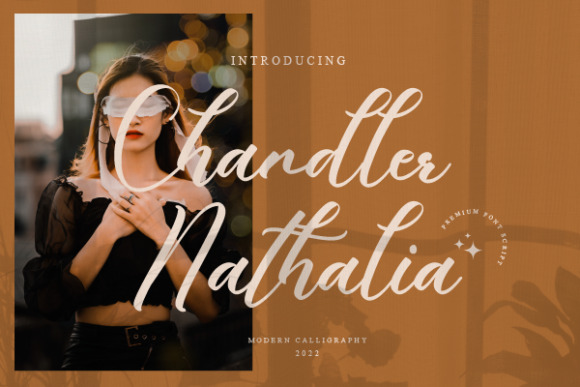
**Introducing Chandler Nathalia Script Font: The Epitome of Elegance for Your Special Moments**
Immerse yourself in the world of Chandler Nathalia, a captivating script font that exudes both charm and sophistication. Its graceful curves and elegant strokes evoke a sense of timeless beauty, making it the perfect choice for any design that demands a touch of personalized flair.
**Elevate Your Storytelling with Unrivaled Charm**
Whether crafting heartfelt wedding invitations or expressing gratitude through thoughtful thank-you cards, Chandler Nathalia elevates your message with an air of timeless elegance. Its versatility extends beyond the wedding realm, seamlessly complementing quotes, greeting cards, and even logos and business cards.
**Personalize Your Designs with a Touch of Finesse**
With Chandler Nathalia at your fingertips, the possibilities are endless. Its delicate yet eye-catching style adds a touch of personalization to every design project, transforming ordinary words into captivating expressions of your unique vision.
**Experience the Allure of Customization**
Chandler Nathalia empowers you to craft designs that truly reflect your individuality. Its meticulous design ensures that each letter holds its own distinct character, allowing you to create a cohesive and visually stunning aesthetic that captures the essence of your brand or special occasion.
**Indulge in a World of Versatility**
From the delicate swirls of wedding invitations to the bold strokes of business cards, Chandler Nathalia adapts effortlessly to a myriad of design styles. Its versatility empowers you to explore endless creative possibilities, ensuring that your message always shines with distinction.
**Embrace the Art of Timeless Beauty**
Chandler Nathalia is not merely a font; it's a testament to the enduring power of timeless elegance. Its graceful curves and elegant strokes will forever remain a symbol of sophistication, captivating hearts with their enduring charm.